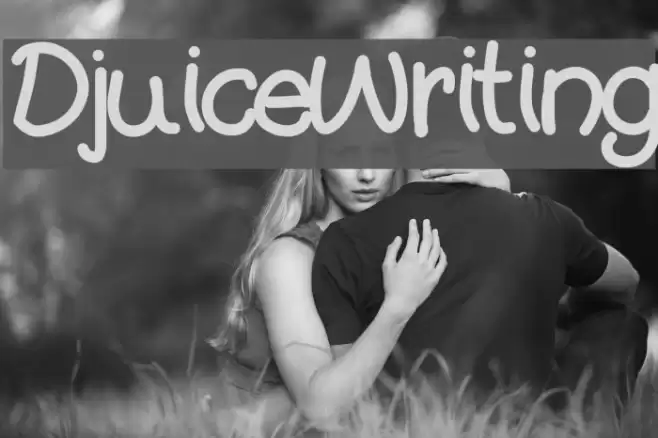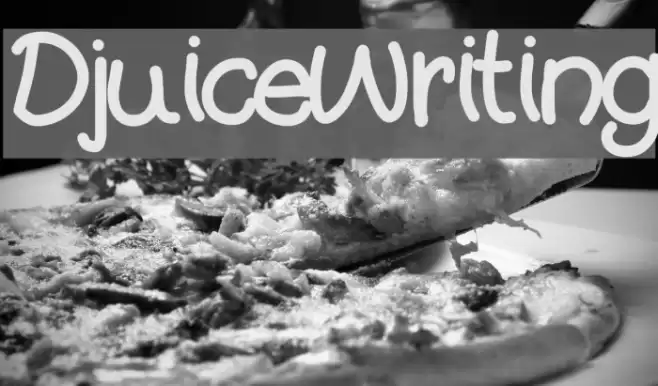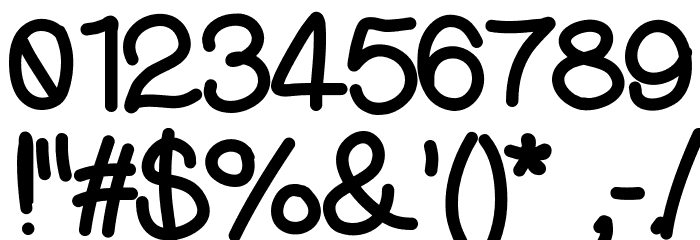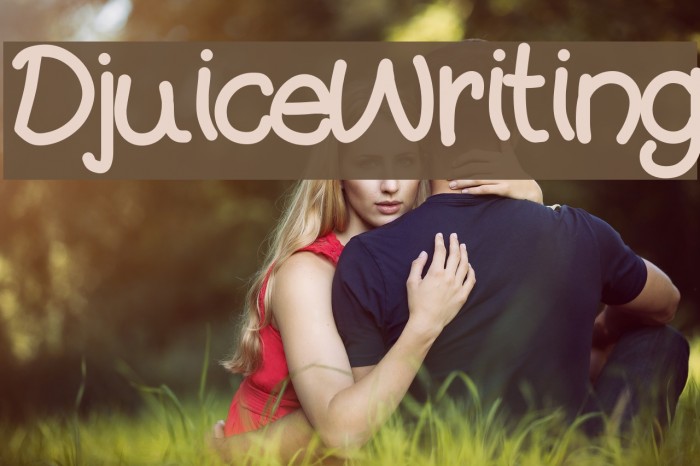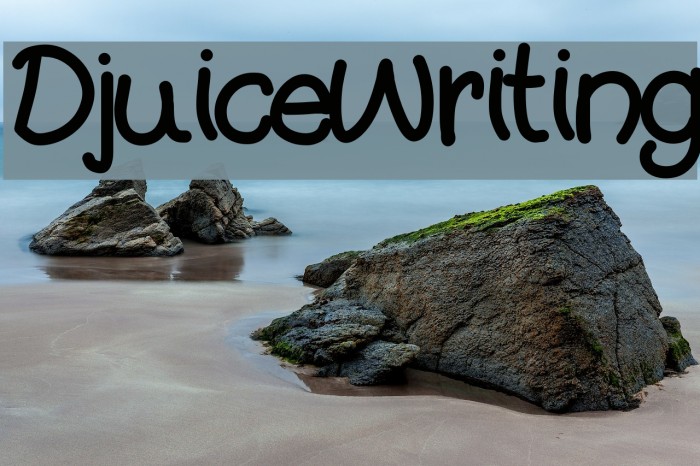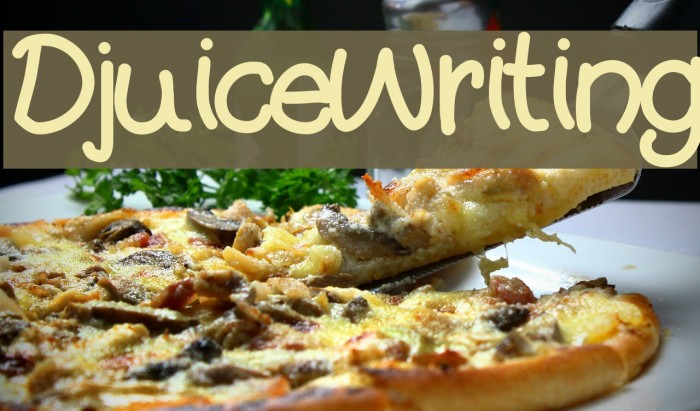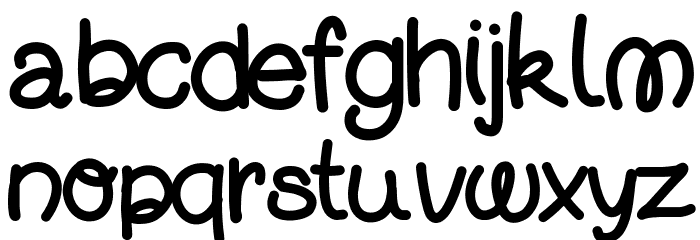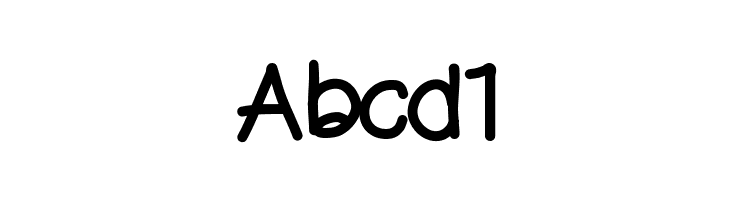
DjuiceWriting Font
DjuiceWriting Description
This playful and whimsical font features a handwritten style with rounded, smooth edges that give it a friendly and approachable feel. The characters are slightly irregular, adding to the casual and informal aesthetic. The uppercase and lowercase letters maintain a consistent style, with a slight slant that suggests movement and energy. The numbers and special characters are designed to match the overall playful theme, making them suitable for creative and fun projects. The font's unique personality makes it ideal for designs that require a touch of humor or lightheartedness.
A playful, handwritten font with rounded edges and a whimsical style from Handwritten fonts.
- Proposed Projects: Ideal for children's books, greeting cards, playful branding, and casual invitations.
- Overall Style: Playful
- Use Case: Headlines, Logos, Informal Text